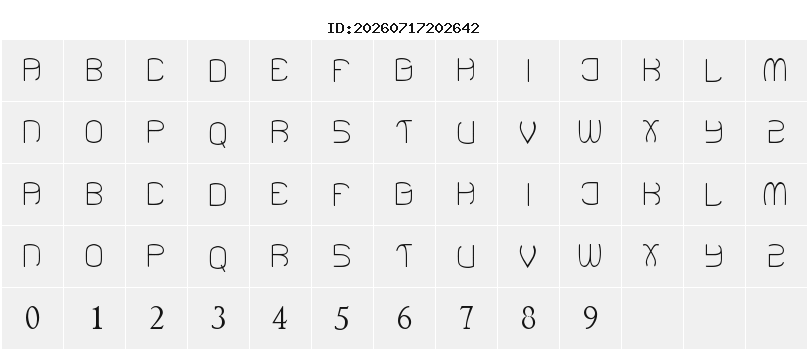
• Font Name: Been Hanging Around
• Full Font Name: Been Hanging Around
About Been Hanging Around .ttf
Been Hanging Around .ttf is a modern, elegant sans-serif font designed for ultimate readability and visual harmony. Perfect for branding, headlines, web design, and print materials.